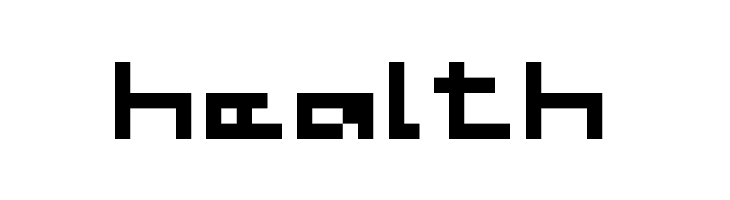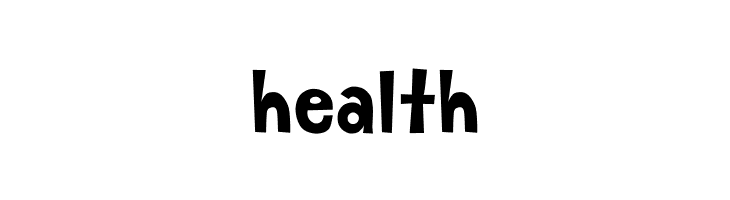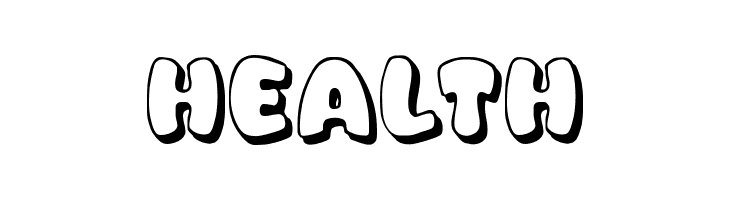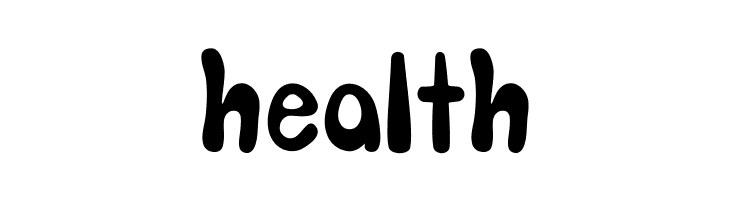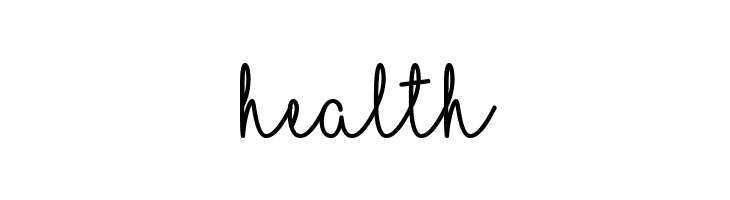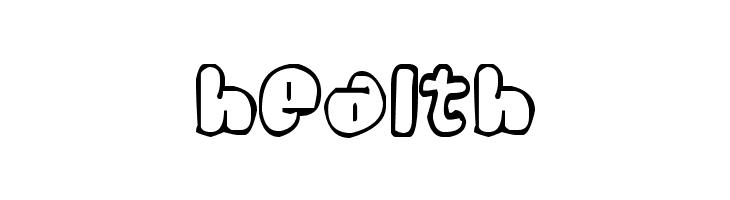
A bold, geometric font with a futuristic and blocky design.
A textured, fabric-inspired font with bold outlines and a handcrafted feel.
A bold, distressed font with a grunge aesthetic and rough edges.
A bold, distressed font with a vintage, handcrafted feel.
A tall, narrow font with a distressed, vintage texture.
A bold, distressed font with rough, textured edges.
A bold, gothic-inspired font with high contrast and dramatic strokes.
A playful and elegant script font with a handwritten touch.
A playful, hand-drawn font with a whimsical and informal style.
An elegant script font with flowing, calligraphic style and bold strokes.
A clean, monospaced font with a light and minimalistic design.
A bold, flowing script font with elegant, cursive letterforms.
A playful, bold font with rounded, bubble-like characters perfect for fun projects.
A playful, rounded font with a hand-drawn, whimsical style.
A dynamic handwritten font with fluid strokes and a personal touch.
A bold, decorative font with intricate internal patterns and elegant swirls.
A bold, dynamic script font with interconnected letters and a playful style.
A bold, cursive font with a playful and dynamic style.
A bold, cursive font with playful, interconnected letters and high contrast.
A bold, decorative font with intricate line details and high contrast, perfect for vintage-themed projects.
A vintage, decorative font with a distressed texture and unique serifs.
A vintage, italicized decorative font with bold, slanted characters and intricate detailing.
A bold, italic font with outlined characters and a dynamic style.
A bold, italic font with a textured, sketch-like appearance and strong decorative elements.
A whimsical, hand-drawn font with a vintage charm and artistic flair.